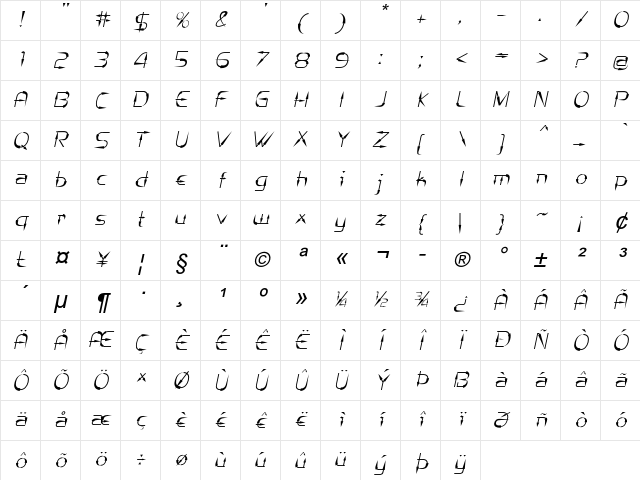
Complete Trenstan Italic glyph index. Displaying only characters natively supported by Trenstan Italic font.
Trenstan is a composed and adaptable typeface that performs quietly and consistently across a wide range of design contexts. The slanted form adds forward momentum and visual energy.